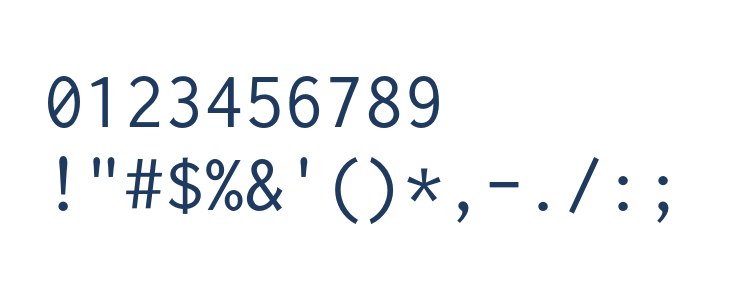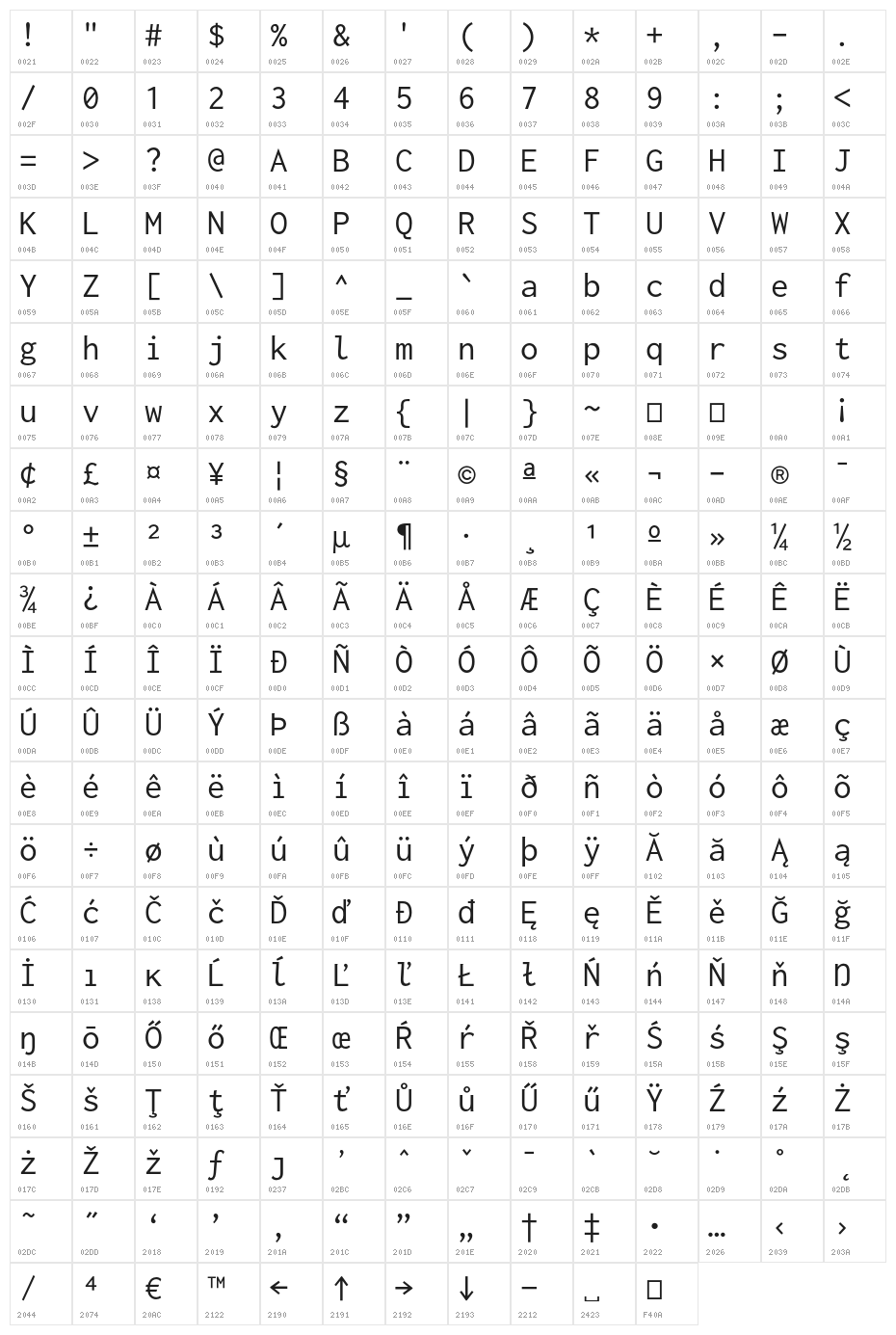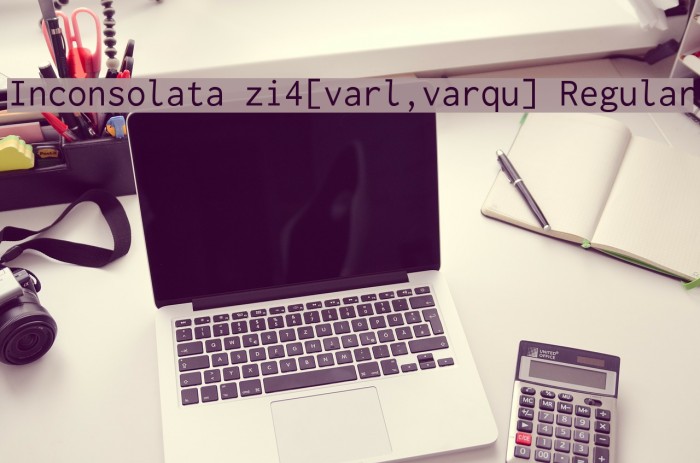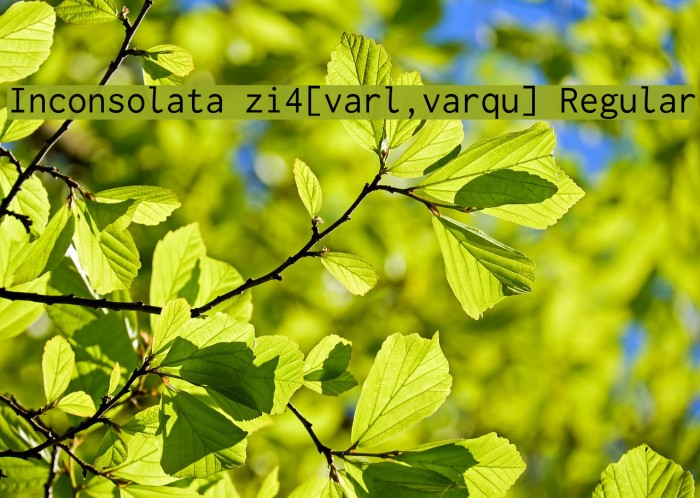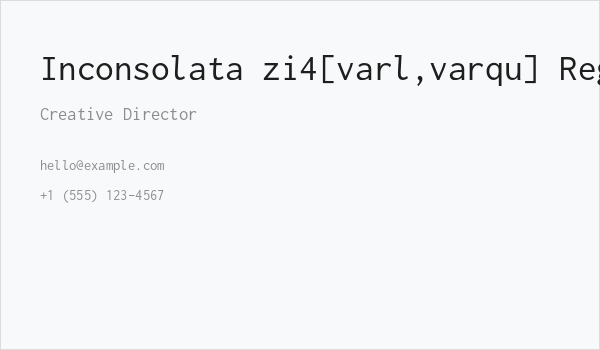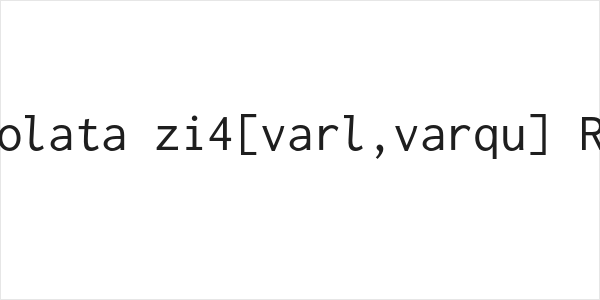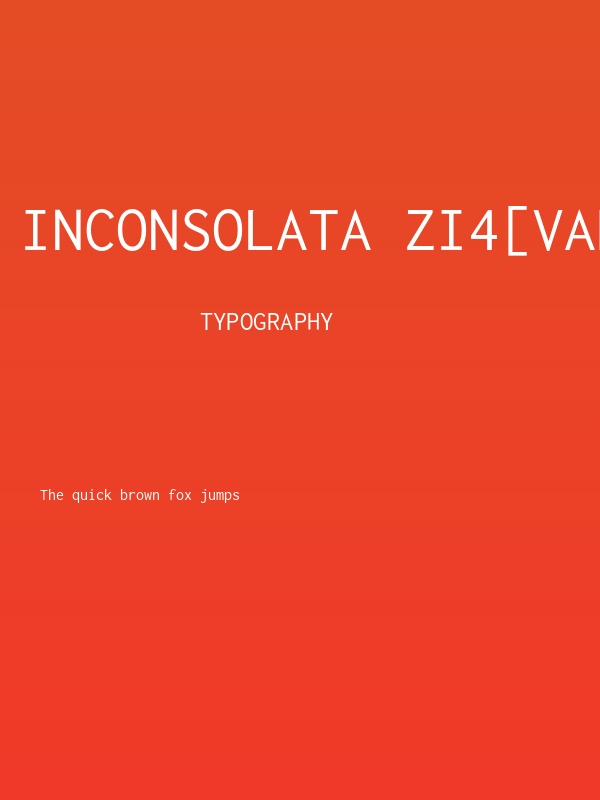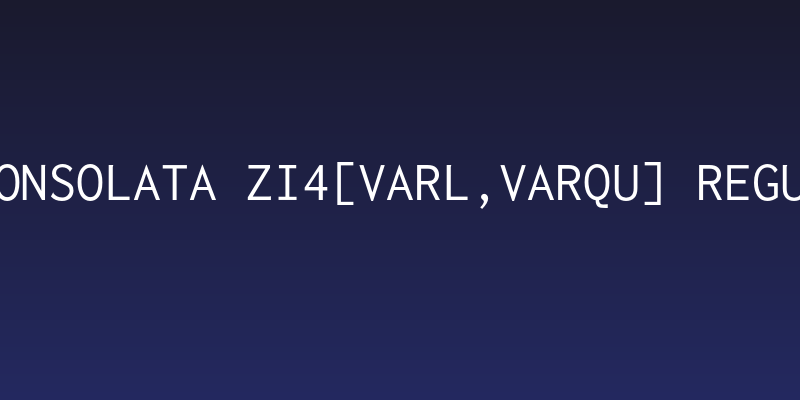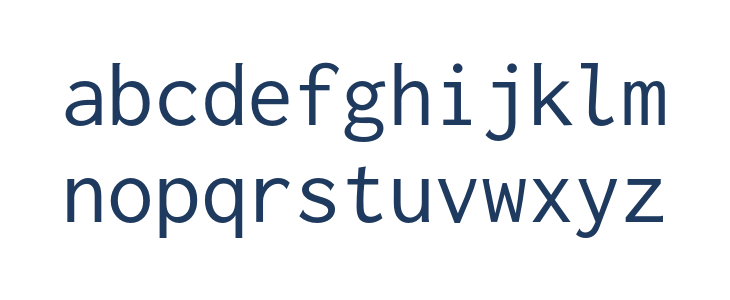
Inconsolata zi4[varl,varqu] Regular Font
Inconsolata zi4[varl,varqu] Regular Description
This font is a monospaced typeface characterized by its clean and modern appearance. Each character is designed to occupy the same amount of horizontal space, making it ideal for coding and tabular data. The letters have a geometric structure with a slight roundness that adds a touch of friendliness. The strokes are consistent in width, providing a uniform look across all characters. The font includes a full set of uppercase and lowercase letters, numerals, and a variety of special characters, ensuring versatility in usage. Its simplicity and clarity make it highly readable, even at smaller sizes.
| Use Case | Coding, Technical documentation, Data tables |
| Proposed Projects | Ideal for coding environments, technical documentation, and data tables. |